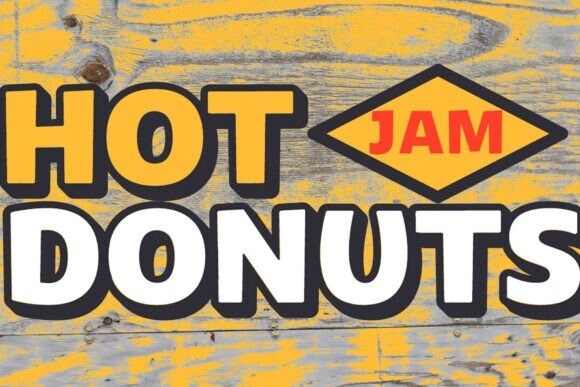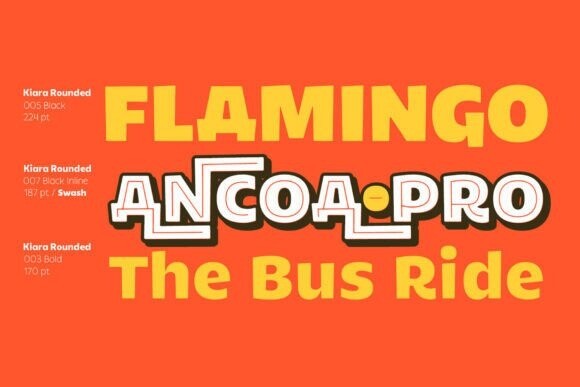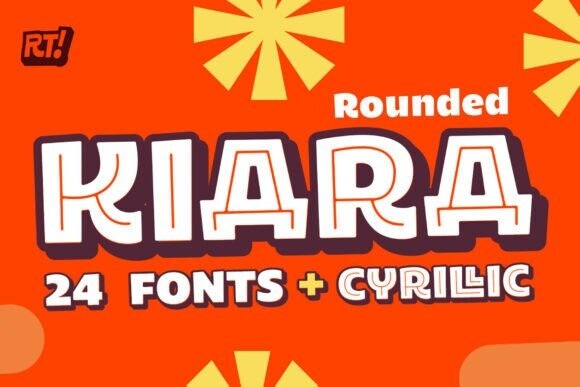
Kiara Rounded Font
Designer: Rodrigo Typo
Kiara Rounded Font, is a cute and charming display font. Whimsical and a bit quirky, this font will brighten up each of your designs. Add it confidently to your projects, and you will love the results.